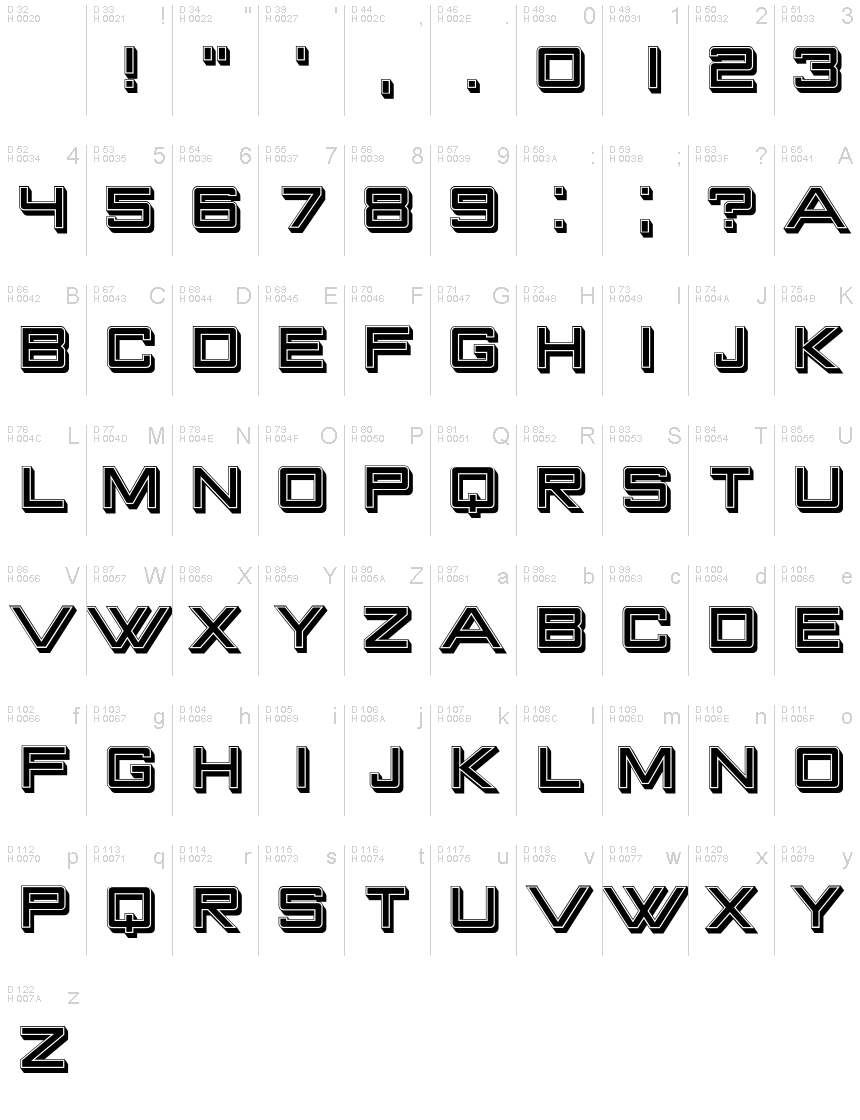
Maintal 3D font is a blocky, geometric industrial creation by Vladimir Nikolic. This expanded sans serif font carries a bold presence and impactful style that makes it stand out in even the most crowded places. Its sporty and retro-inspired design will give your project an entirely new appearance that is highly elegant and consistent.